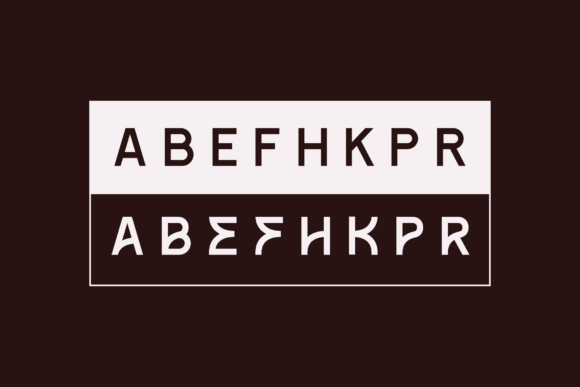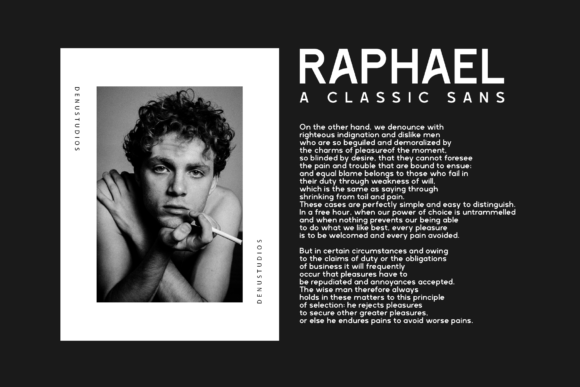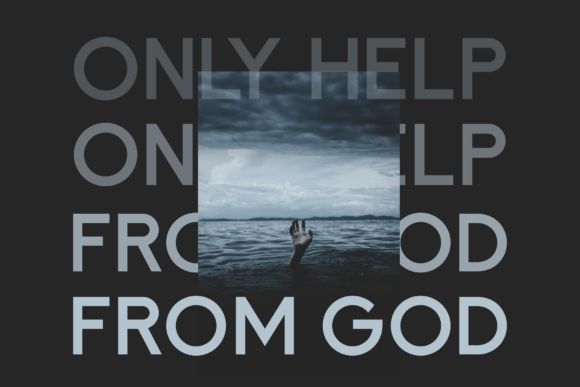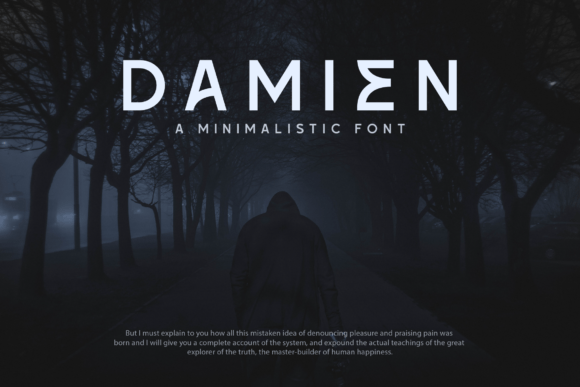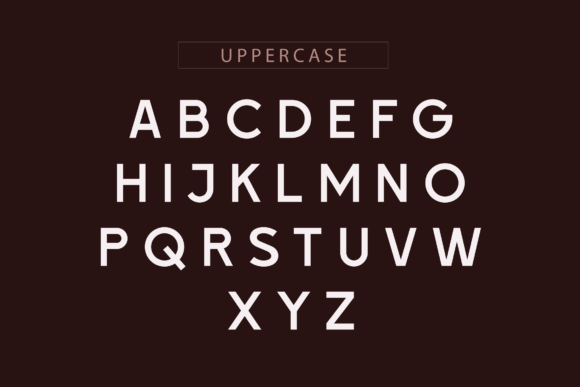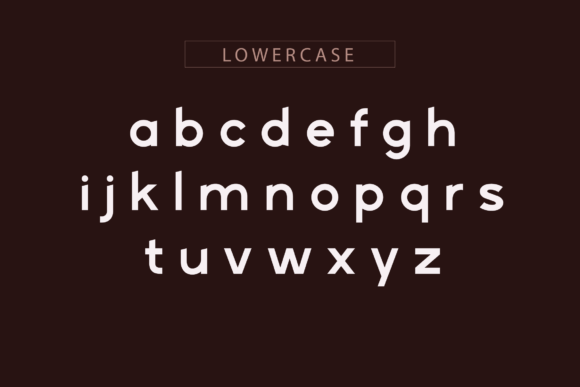
Introduction to Requiner Font
Do you remember the moment when you stumbled upon the perfect font for your creative project? For many designers, that moment is what makes all the hard work worth it. And if you’re reading this, you might be on the hunt for the perfect sans-serif typeface that exudes elegance and luxury. That’s where the Requiner Font comes in – a modern and classic sans-serif typeface that’s about to become your new favorite design resource.
| 👤 Author | Denustudios |
With its unique style and modern look, the Requiner Font is perfect for an array of creative projects, from luxury logo designs to fashion brand identities. Its high-quality design makes it an ideal choice for book and movie title designs, magazine layouts, and even lettering and quotes. Plus, it’s available for free download, making it a valuable asset for designers on a budget.
Whether you’re working on a high-end fashion campaign or a simple blog post, the Requiner Font is sure to elevate your design to the next level. Its versatility and sophistication make it a must-have in any designer’s toolkit, and its transparent background ensures that your design stands out from the crowd. Get ready to fall in love with the Requiner Font – your next creative project will thank you!
Key Features of Requiner Font
- High-quality design: Requiner Font is a premium font designed for creative projects, offering a sophisticated and elegant look.
- Transparent background: This font features a transparent background, making it ideal for use on any background or design element.
- Perfect for design projects: Requiner Font is a versatile design resource suitable for a wide range of creative projects, including graphics, logos, and typography.
Honest Review: Requiner Font
As a designer, I’m always on the lookout for high-quality fonts that can elevate my creative projects. I recently stumbled upon the Requiner Font, and I’m excited to share my honest review with you.
- The Requiner Font is a great addition to any design project that requires a unique and elegant touch.
- The transparent background option allows for seamless integration with various design elements.
- The font may not be suitable for projects that require a more playful or informal tone.
- The character set is limited, which may pose issues for designers working on complex projects.
Overall, the Requiner Font is a solid addition to any design resource library. While it may have some limitations, its unique style and high-quality design make it a great choice for designers working on creative projects.
Tips for Getting the Most Out of Requiner Font
Use the Requiner Font in conjunction with a transparent background to create eye-catching designs. This font is perfect for creative projects that require a high-quality, unique design resource.
The Requiner Font is ideal for use in logos, branding materials, and social media graphics. You can also use it to add a touch of elegance to your presentations and documents.